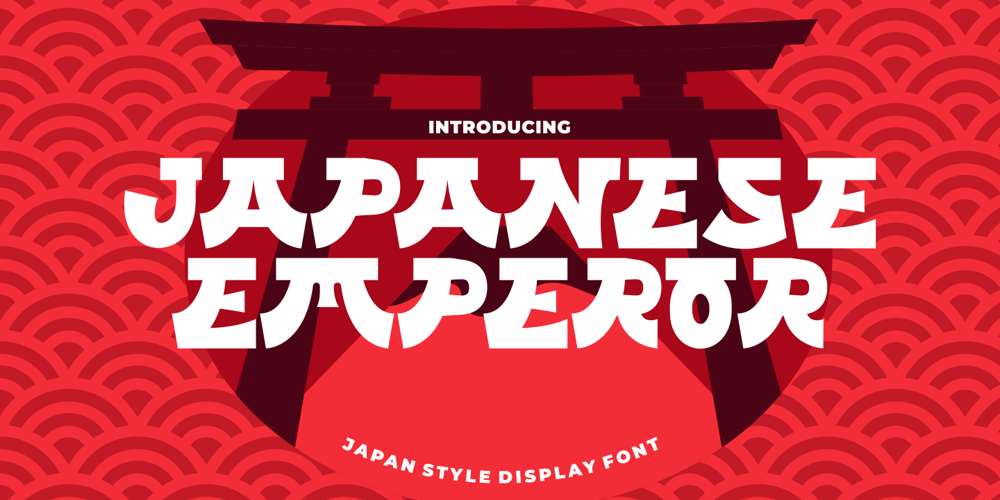
Japanese Emperor Font Family was designed by Putra Novembria Candra Kusuma and published by Putracetol. Japanese Emperor contains 1 styles and family package options. Japanese Emperor is a font inspired Japanese style and the only fonts with shapes and styles that exactly resemble the Japanese characters & this font is easy to read and can be applied to all media and all can use this font without exceptionThis font is suitable for your projects such as logos, wedding invitations, branding, landing pages, apparel, posters, headlines, greeting cards, invitation cards, social media, crafting, quote and more.This font can be used and supported in various programs and OS, such as procreate, cricut, windows, macOS and others. This font is also support multi language.